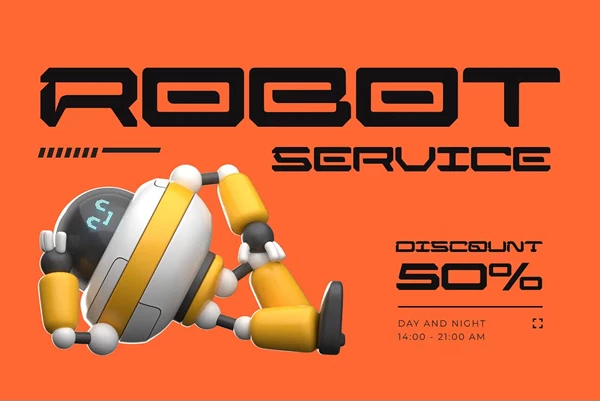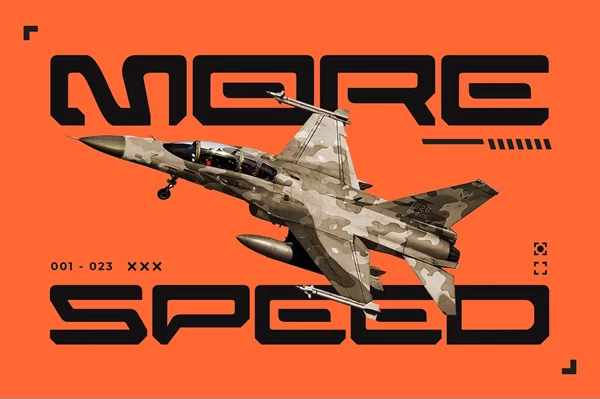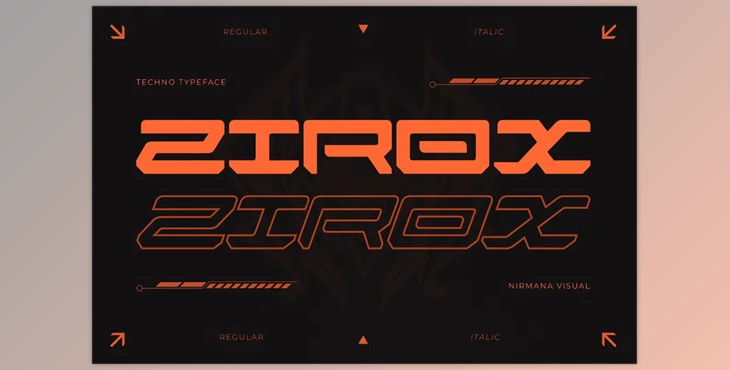
Zirox Cyberpunk - Branding Logo Font:
Step into tomorrow with Zirox Cyberpunk font designed specifically for bold logo branding and visual design. Zirox titles were inspired by the cyberpunk aesthetic, rich in lively colors and light, therefore incorporating sharp angles along flowing lines. This font suits any gaming or technology startup project and other sci-fi themed work because it is bold and dynamic which captures attention and strengthens brand identity.
- Two styles thin and italic to suit divers designs.